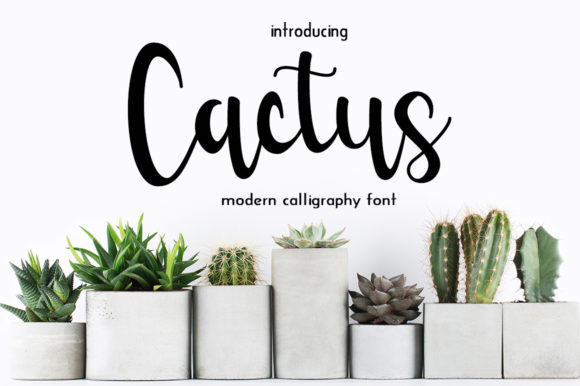
About Cactus Font
Cactus: Embrace the Flowing Elegance of a Timeless Handwritten Font
Introducing Cactus, a font that gracefully embodies flowing elegance in every stroke. Its handwritten style is characterized by an elegant touch, making it a perfect choice for your favorite projects. Prepare to be enchanted by its incredibly distinct allure as it infuses your creations with a touch of timeless beauty, allowing you to craft spectacular designs that leave a lasting impression.
The allure of Cactus lies in its seamless flow and graceful touch. Each letter dances with effortless beauty, evoking the serenity and resilience of a cactus in the desert.
Designing with Cactus is a delightful experience. Whether you’re creating enchanting wedding invitations, designing heartfelt greeting cards, or crafting artistic prints, this font elevates your work to a level of refined beauty.
Expressing sentiments becomes an art form with Cactus. Its flowing nature breathes life into your words, making them resonate with warmth and authenticity.
Gorgeous designs come to life with Cactus’ timeless style. Whether you’re creating elegant logos, crafting social media graphics, or designing book covers, this font adds a touch of sophistication that captivates the eye.
For businesses seeking a brand identity that stands out, Cactus is the answer. Its elegant and distinct appearance communicates a sense of creativity and professionalism, making it a versatile choice for various industries.
And when it comes to unleashing your creativity, Cactus won’t disappoint. Its timeless charm allows it to complement a wide array of design concepts, from classic and refined to modern and chic.
In conclusion, Cactus is more than just a font; it’s a flowing masterpiece of elegance. Embrace its distinct and timeless charm, and let it become the muse for your most cherished projects. Whether you’re celebrating love, expressing gratitude, or building a captivating brand identity, Cactus will be your loyal companion, adding a touch of sophistication and grace. Allow this font to unlock the full potential of your creativity and watch as your designs come alive with the flowing elegance of Cactus. Fall in love with its timeless beauty, and let it be the guiding light that leads you to create truly spectacular designs that stand the test of time.